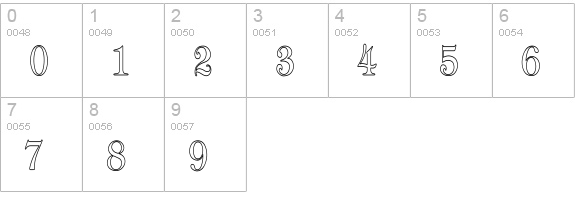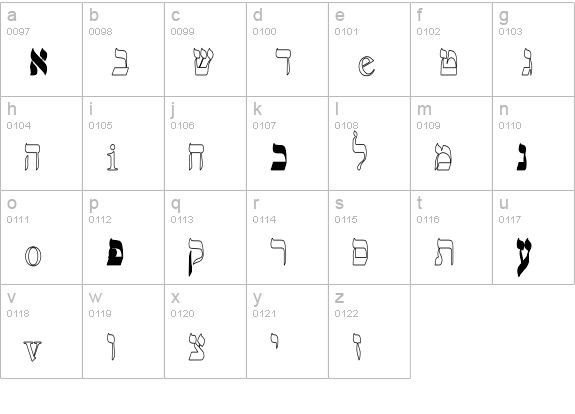
hebrewHC Font Details
HebrewHC is a stunning and versatile font that effortlessly captures the essence of Hebrew script. With its elegant curves and delicate strokes, this font brings a touch of sophistication to any design project. Whether you're creating a logo, designing a website, or crafting invitations, HebrewHC is the perfect choice to add a touch of elegance and uniqueness. What makes HebrewHC even more appealing is that it is available for free download at FontsMarket.com. This means that you can easily access this exceptional font without any cost or hassle. With just a few clicks, you can enhance your designs with the beauty and authenticity of HebrewHC. The designers of HebrewHC understand the importance of accessibility and have generously made this font freely available to all. They believe that everyone should have the opportunity to utilize high-quality fonts without any restrictions. Whether you're a professional designer or an amateur enthusiast, HebrewHC provides you with a valuable resource that will enhance your creative endeavors. So, why wait? Download HebrewHC today from FontsMarket.com and unlock the endless possibilities it offers. Whether you're designing for personal or commercial use, this font will elevate your projects to new heights. With its striking visual appeal and user-friendly nature, HebrewHC is the perfect choice for anyone seeking a beautiful Hebrew font that is both versatile and freely accessible.